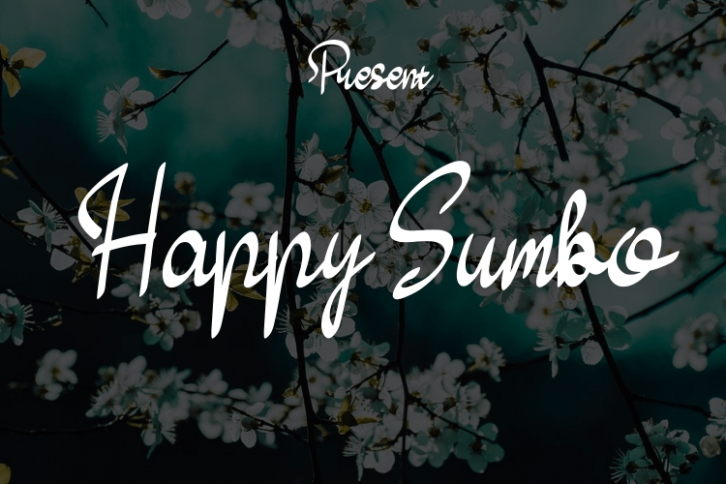
Happy Sumbo is a script typeface that has a simple style & modern look.
This typeface is perfect for an elegant & luxurious logo, book or movie
design titles, fashion brands, magazines, clothing, fonts, quotes and more.